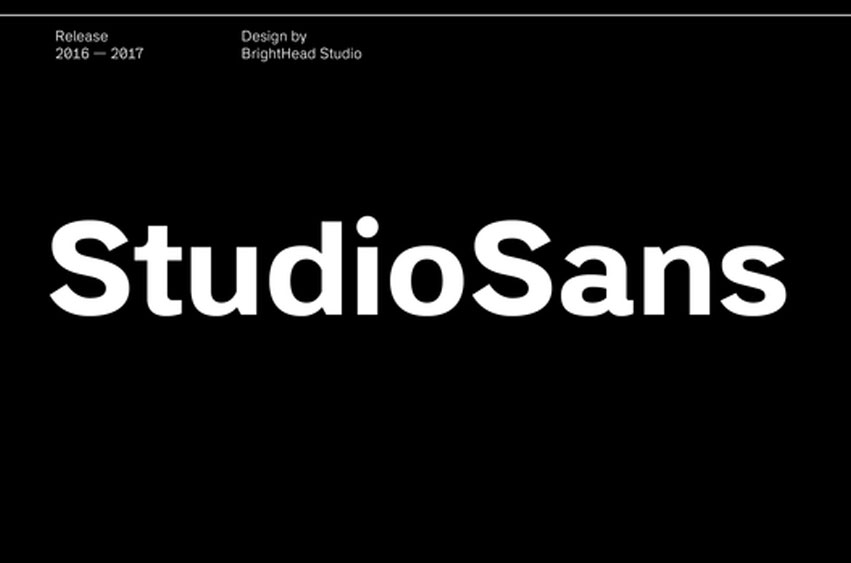
Studio Sans Font
Studio Sans Font has now been officially released! Created and distributed by BrightHead Studio, this contemporary version of sans serif fonts that are based on the classic Swiss style and typography from the mid 20th century has reached our shores.
This family of fonts is made easy and user-friendly with its simple design which has a tall x-height and short ascender/descender components. Finishing its top level of readability with the soft circles, which makes reading so easy.